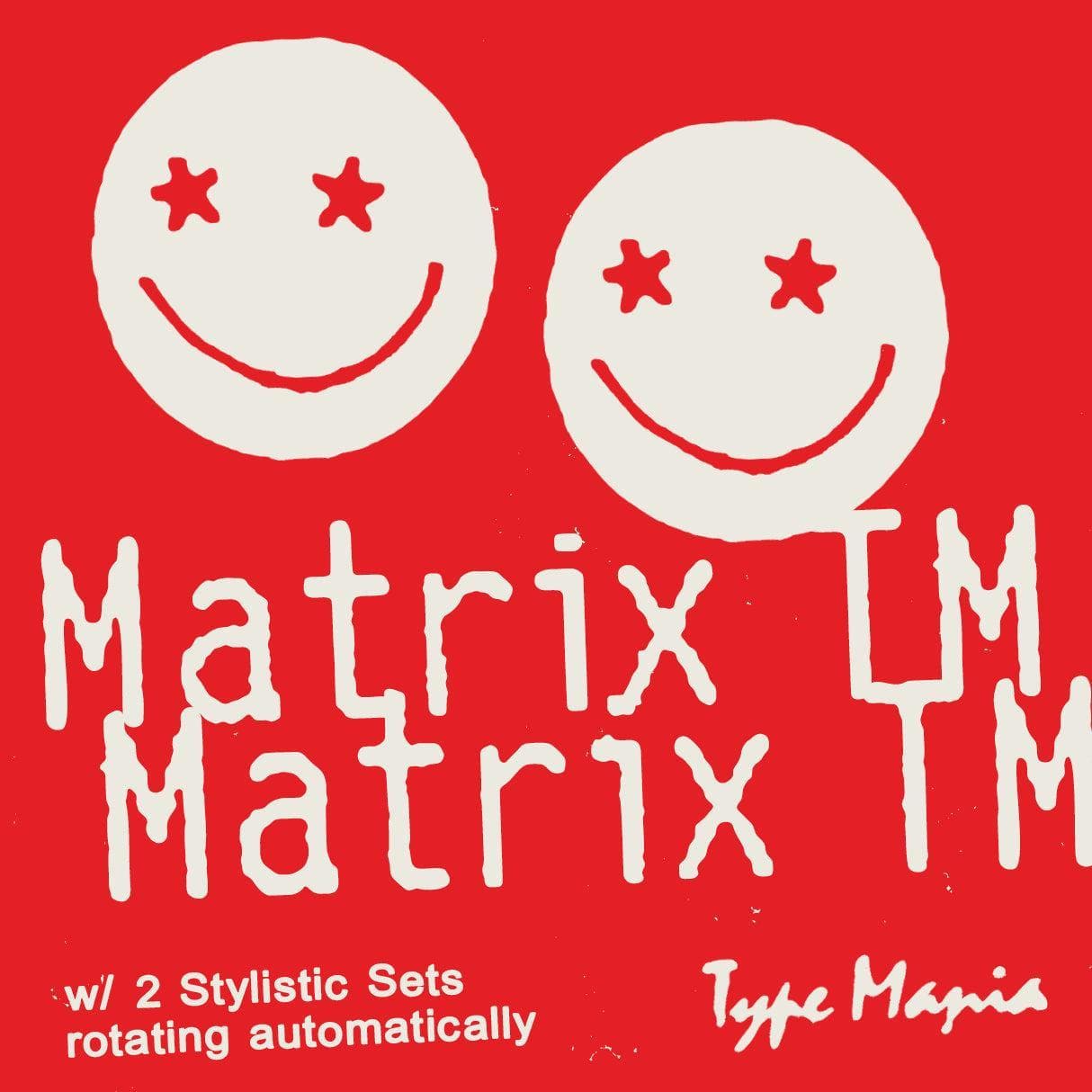
<p><strong>Matrix TM</strong> is a display font inspired by the thermal printers. Includes two distinct stylistic sets that automatically shuffle as you type, mimicing real-world print degradation. So no manual switching, no repeated textures, as long as the Contextual Alternates is turned on 🤝</p> <p><strong>Zip includes</strong></p> <ul> <li>OTF file</li> <li>TTF file</li> <li>WOFF2 file</li> </ul> <p><strong>OpenType features</strong></p> <ul> <li>2 stylistic sets</li> <li>The font is programmed to automatically shift between the stylistic sets</li> </ul> <p><strong>Languages</strong></p> <ul> <li>Basic Latin</li> <li>Western European</li> <li>Euro</li> <li>Central European</li> <li>Pan African Latin</li> </ul> <p><em>Graphic Design is Easy (with Type Mania)®</em></p>